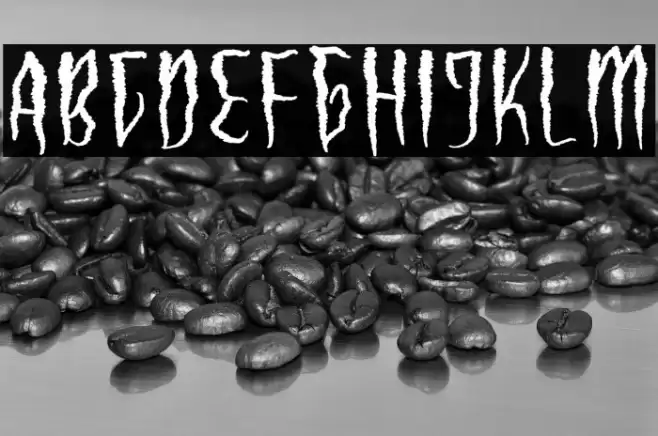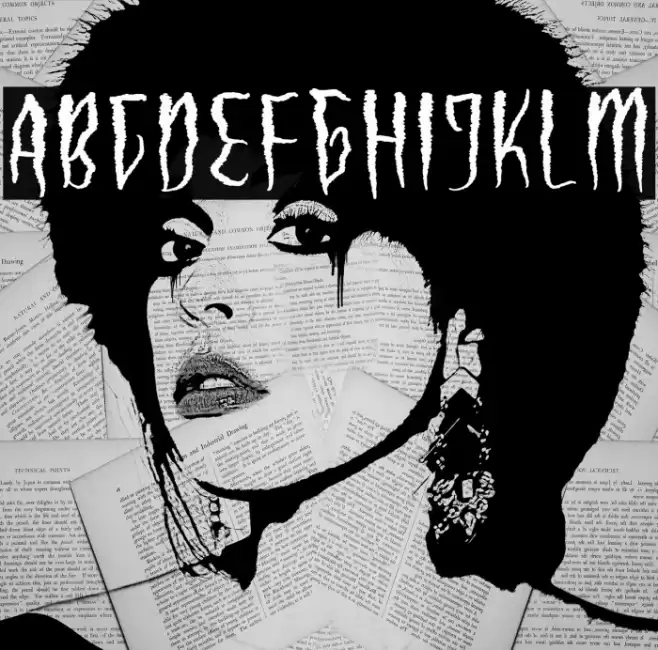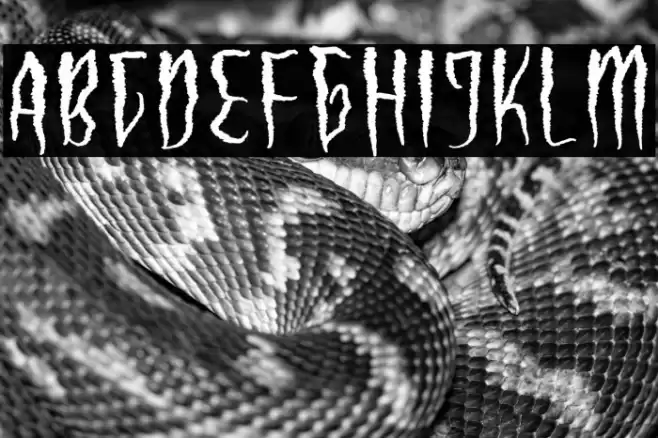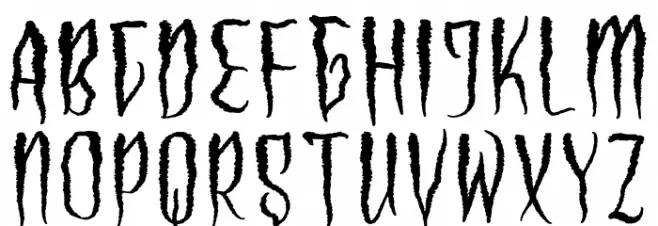
Haunted Vampire Font
Haunted Vampire Description
This font exudes a chilling and eerie aesthetic, reminiscent of classic horror themes. The letters are elongated with sharp, jagged edges, creating a sense of movement and unease. The strokes are uneven, adding to the unsettling vibe, while the overall design is reminiscent of dripping ink or blood, enhancing its spooky appeal. The numbers and special characters maintain this haunting style, making it ideal for Halloween-themed projects or anything requiring a gothic touch. Its unique design captures attention and evokes a sense of mystery and darkness.
A spooky, jagged font perfect for horror and Halloween themes from Uncategorized fonts.
- Font: Haunted Vampire
- Proposed Projects: Ideal for Halloween invitations, horror movie posters, haunted house flyers, and gothic-themed events.